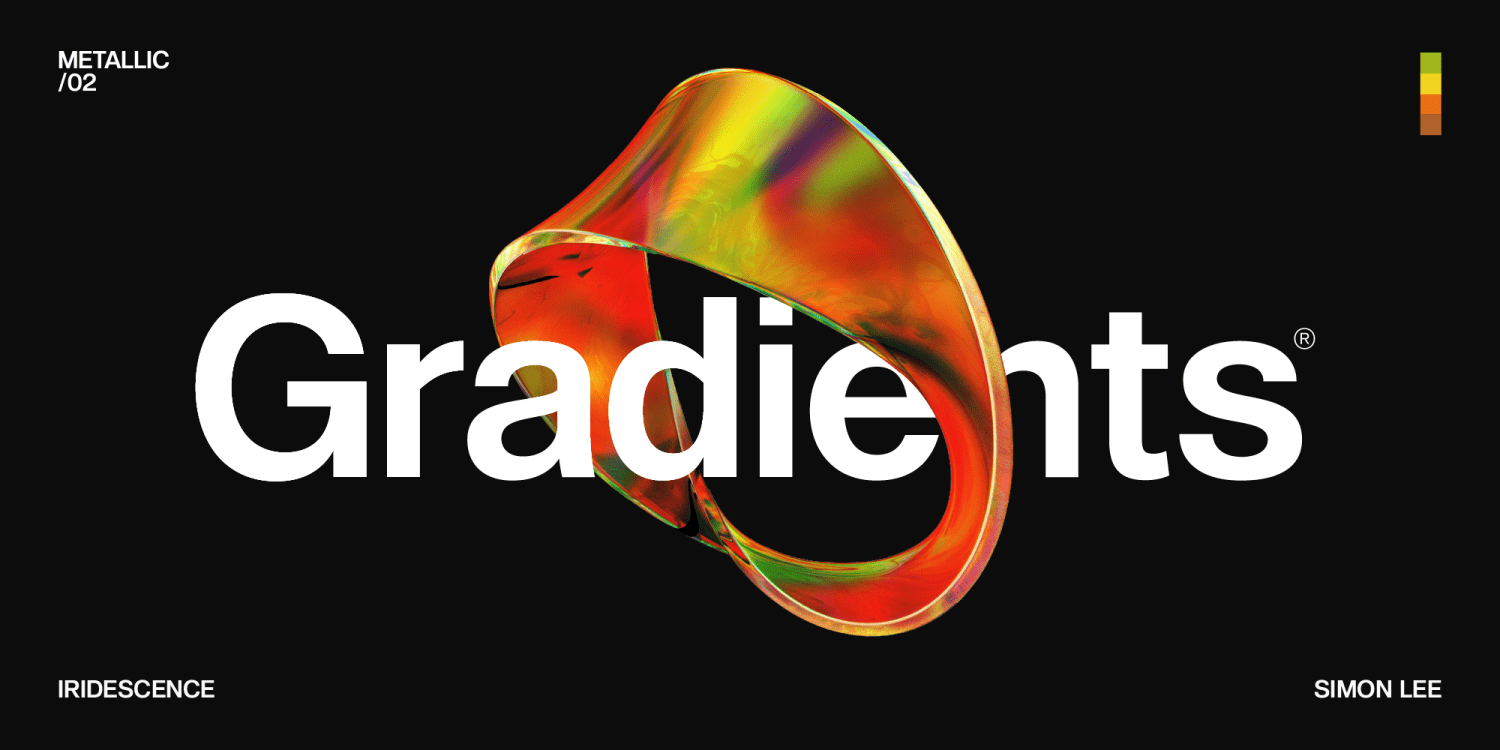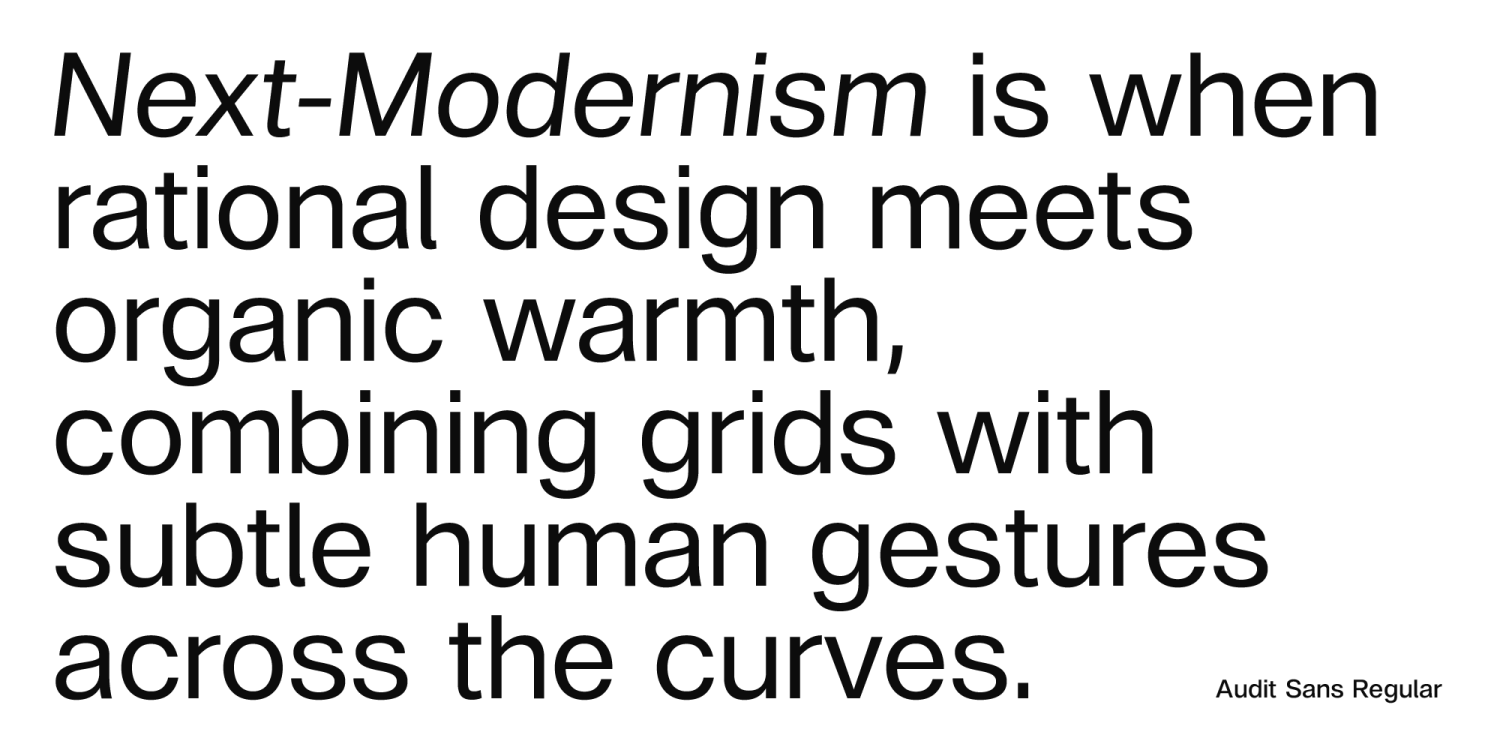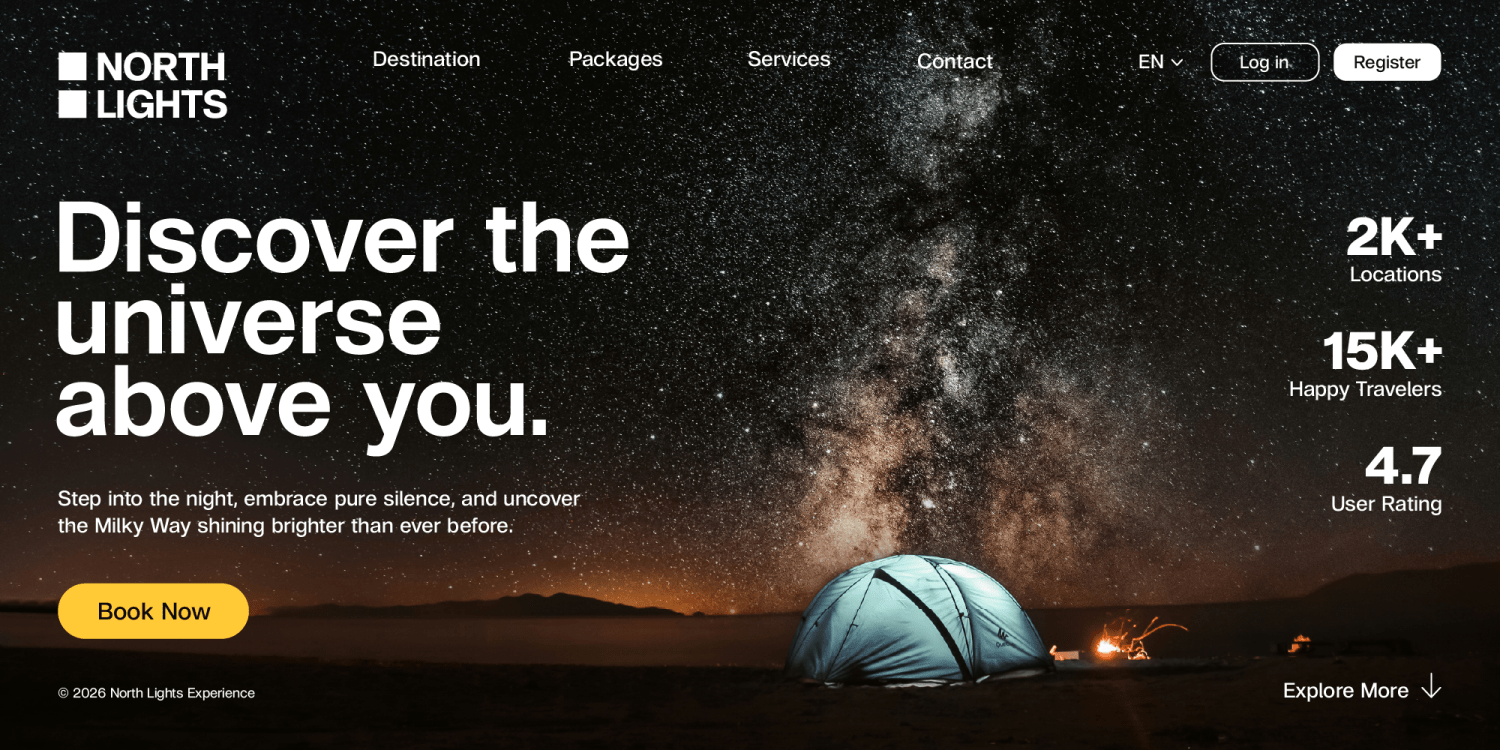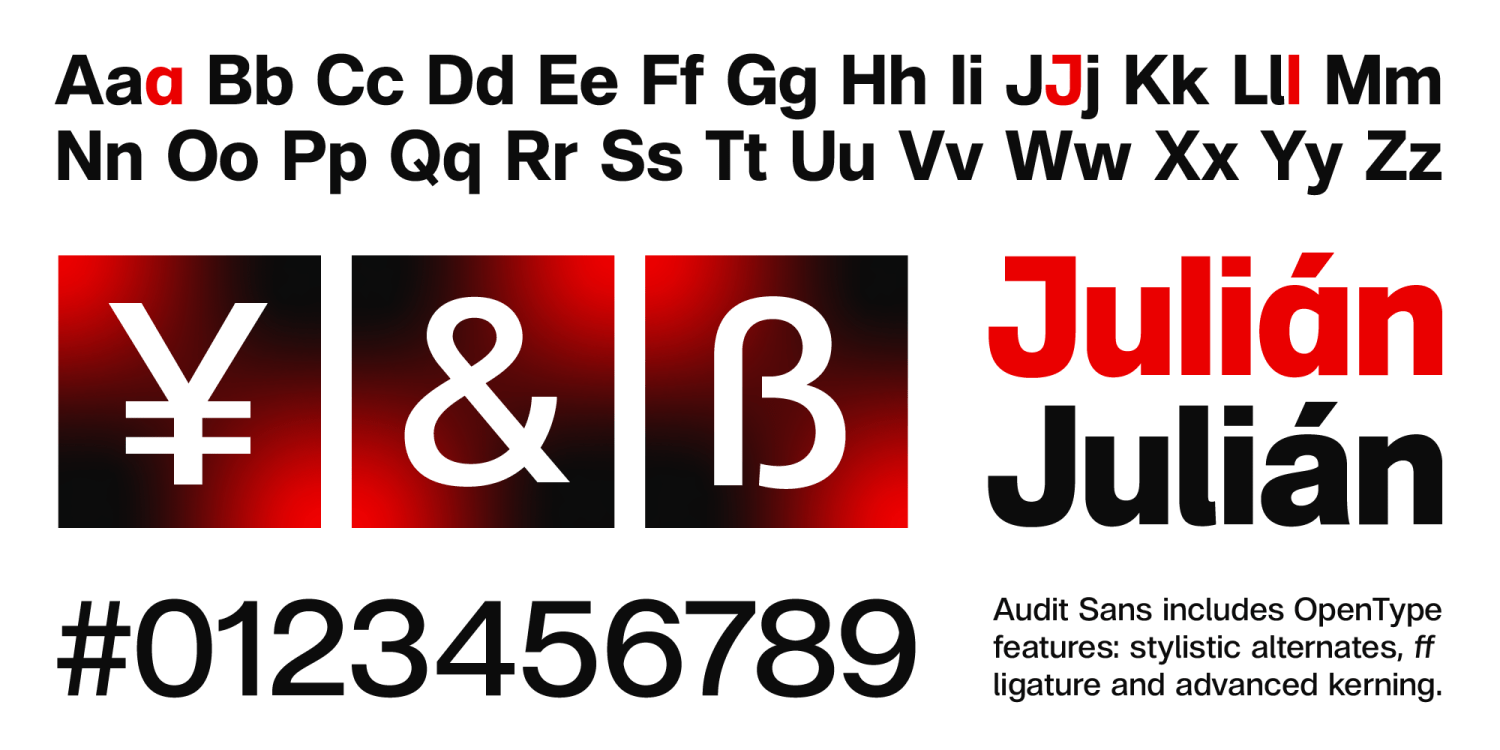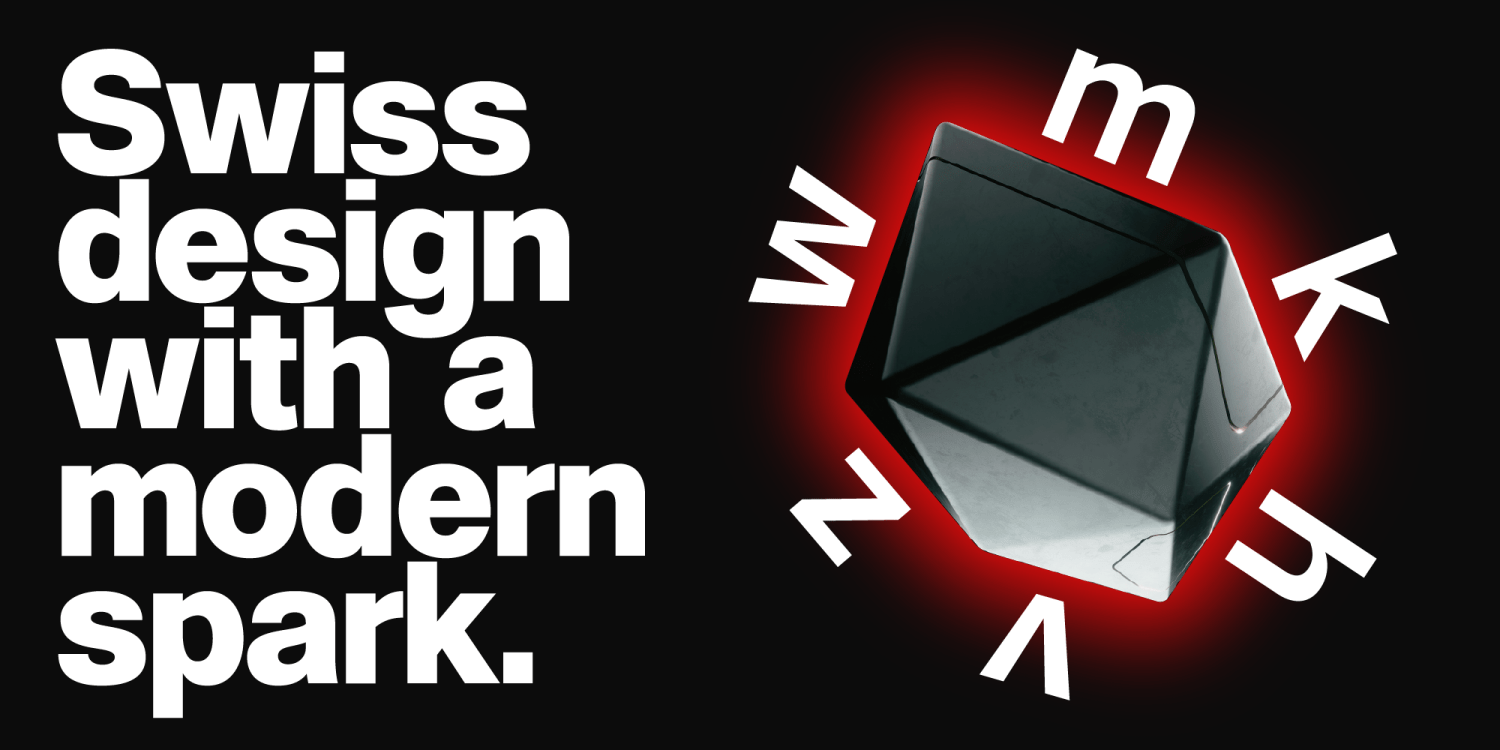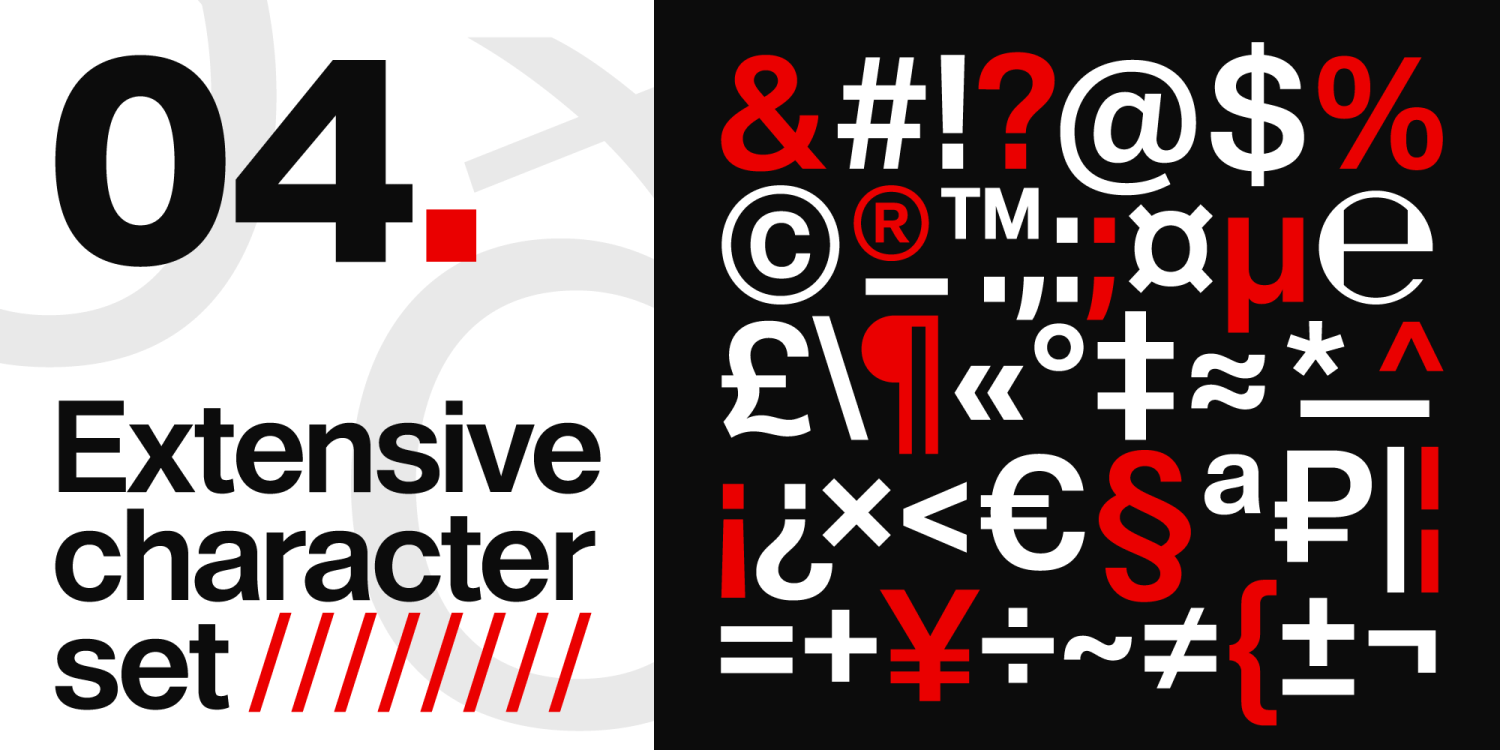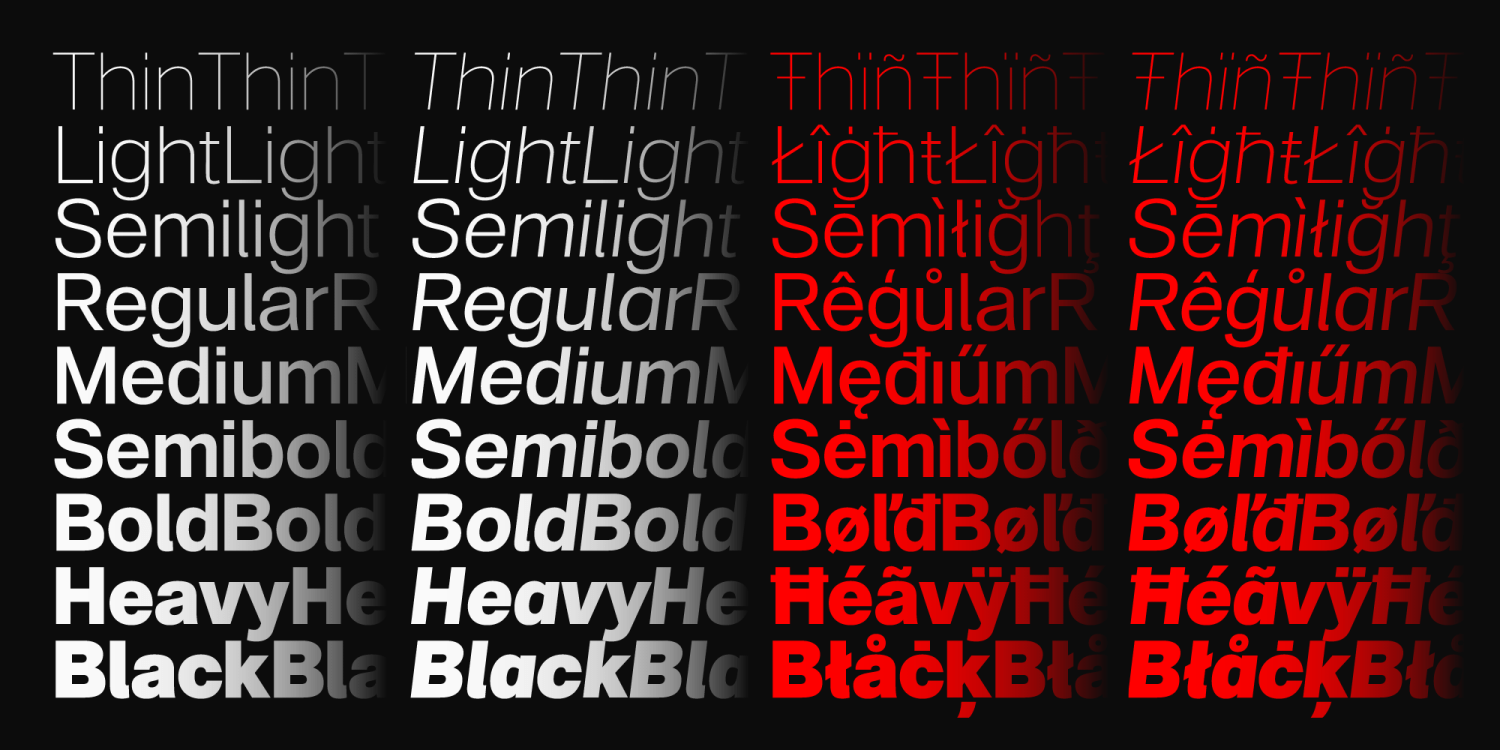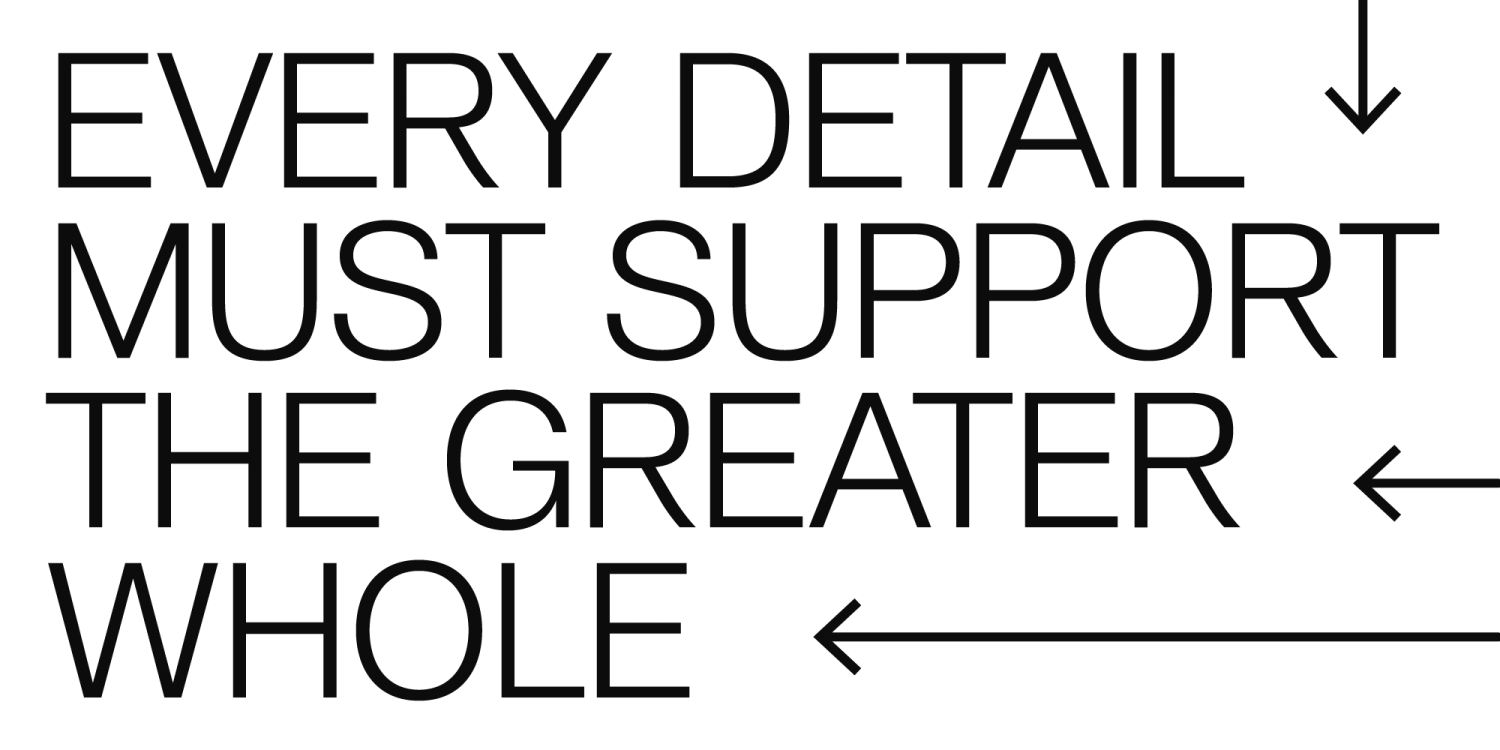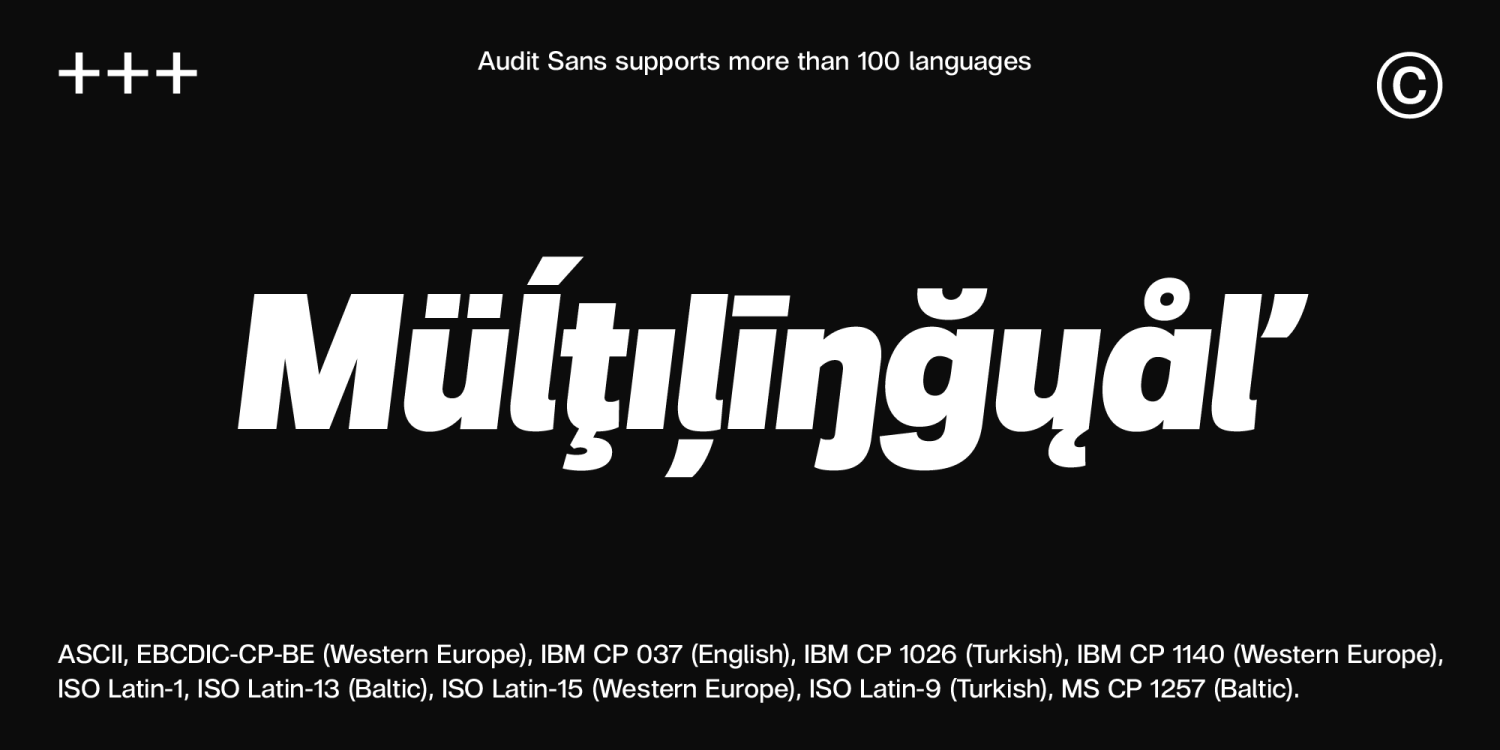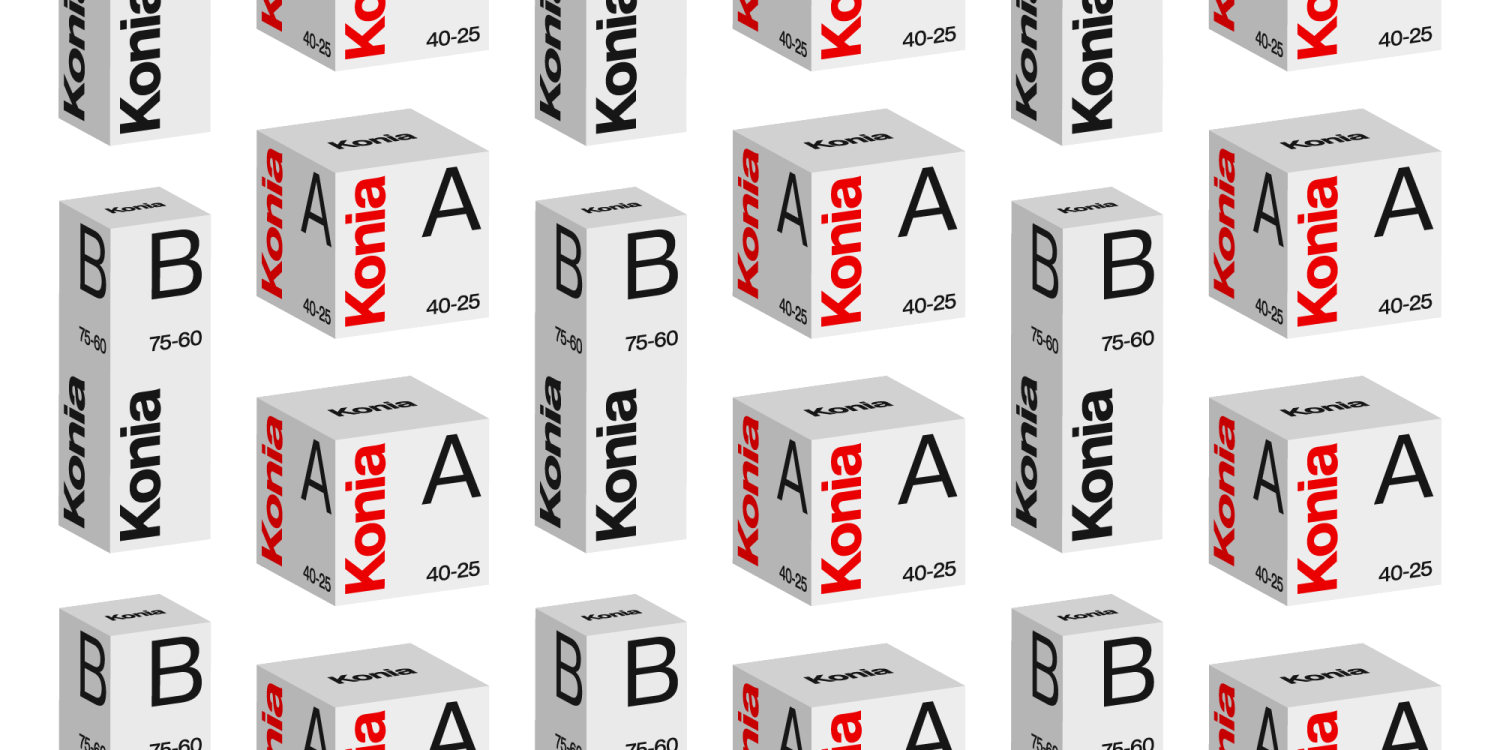
Audit Sans
Audit Sans brings a refined approach to the sans serif genre, combining the clarity of grotesque forms with humanist subtleties in every curve. Designed for designers who seek a font with character but without overt theatricality, Audit Sans balances a distinct presence with a neutral personality—suiting projects where restraint and versatility are paramount.
Rooted in the visual heritage of Helvetica, this typeface extends its appeal through carefully considered design choices, lending it adaptability across various mediums. From editorial layouts and sophisticated style magazines to web interfaces and app environments, Audit Sans ensures consistent legibility and style. Its confident architecture enables smooth transitions between bold headlines, striking logos, and body text that remains always readable.
Features:
- Subtle humanist details within a traditional grotesque structure
- Designed for optimal legibility across print and digital platforms
- Works well for posters, packaging, websites, and editorial content
- Includes 372 glyphs with support for over 100 languages
- Performs in both formal and informal settings